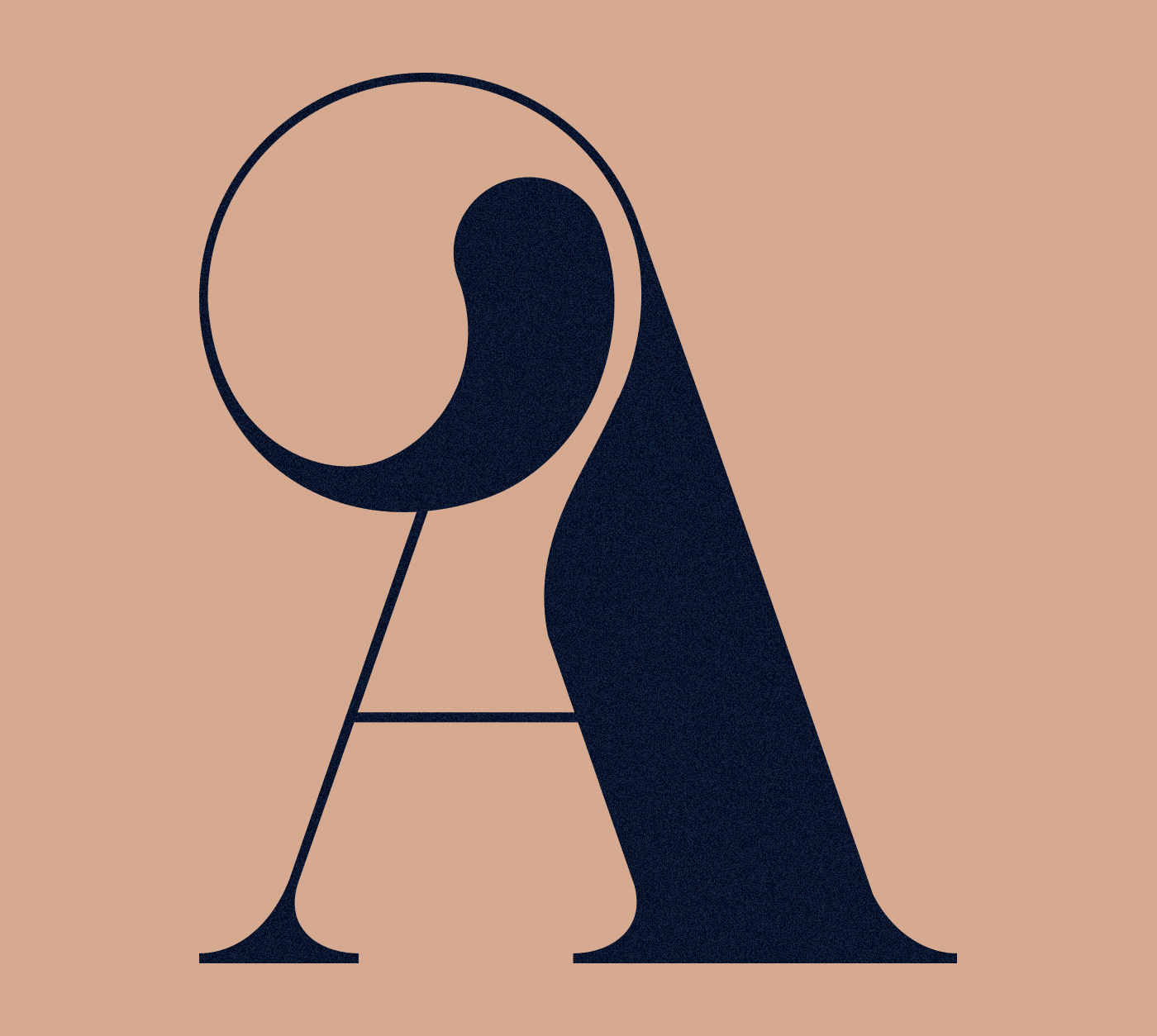
Mint Soda — an Art Deco theme font
We are featuring the work of Patrick Seymour, a freelance art director & illustrator based in Montreal, Quebec, Canada, First of all, hi from a fellow Canadian! Patrick has shared an art deco theme font titled: 'Mint Soda'. I really dig this font, I love the mixture of swirls and it works pretty fine either on a light or dark background. The lines are clean and just played so well with its serif baseline. If you wanna learn about this font, check it out on hellofont.com.